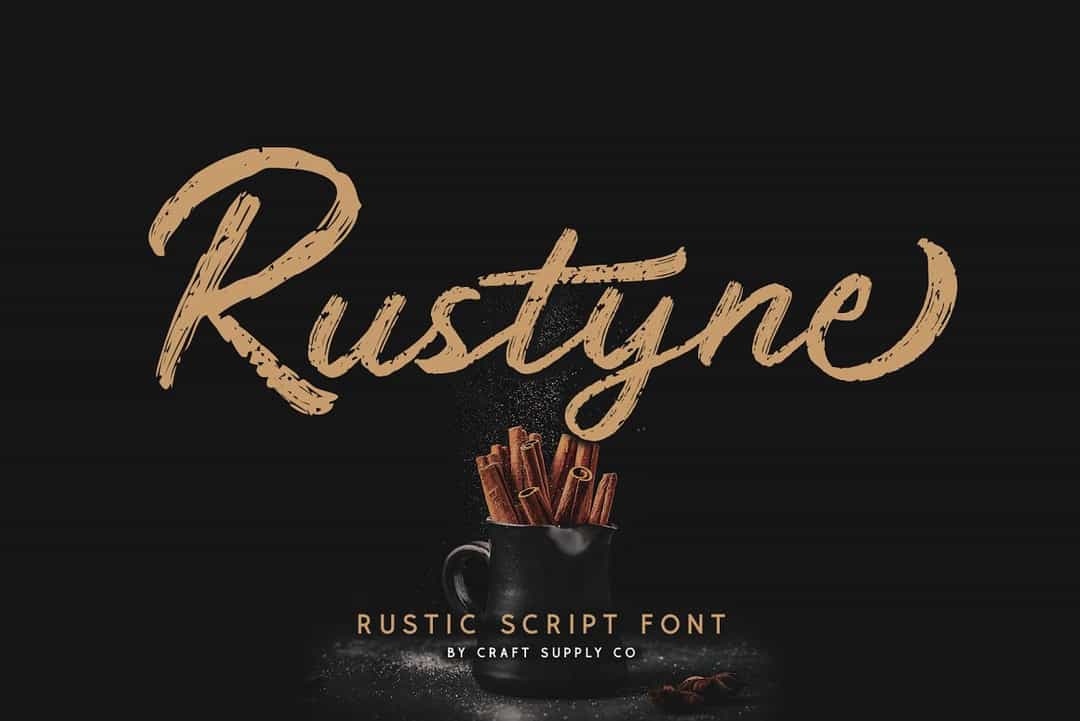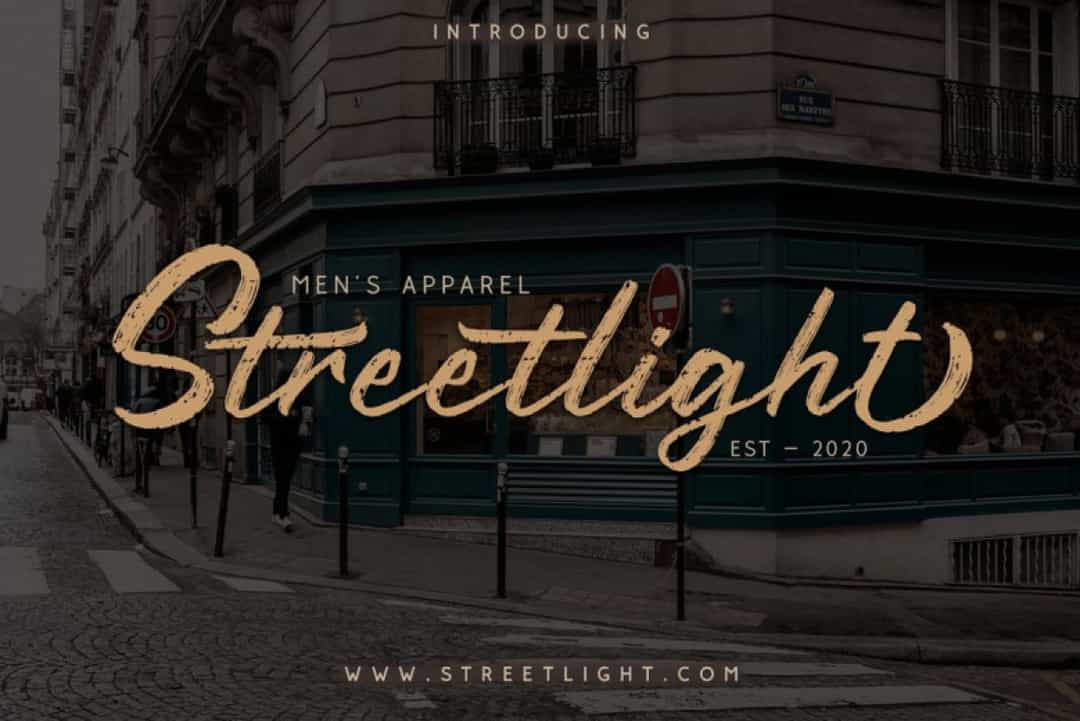
Rustic Brush script Font is an authentic handwritten font derived from real handwriting, perfect for fashion brands, e-commerce companies, wedding boutiques, trend blogs or any business looking to appear chic and sophisticated.